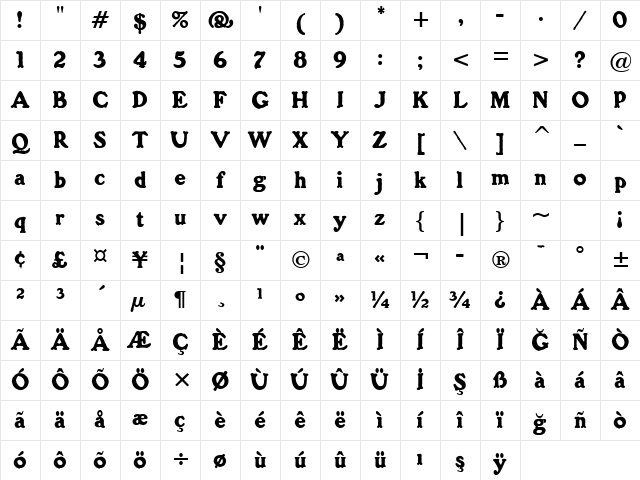
Gorilla BT Regular
Design Context for Gorilla BT
Gorilla BT is a composed and adaptable typeface that performs quietly and consistently across a wide range of design contexts.